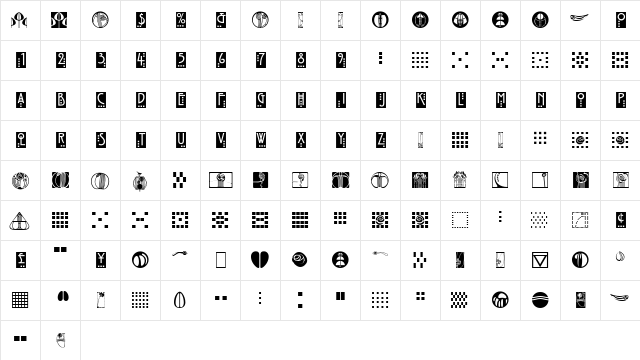
Rennie Mackintosh Ornaments ITC Regular
Design Context for Rennie Mackintosh Ornaments ITC Typeface
Rennie Mackintosh Ornaments ITC brings ornamental detail and strong personality to headlines and identities, where visual impact matters more than quiet functionality.
Font Pairing: Pair with a clean neutral sans-serif for body copy to let Rennie Mackintosh Ornaments ITC's character lead without overwhelming the composition.
Pro Tip: Treat Rennie Mackintosh Ornaments ITC as the centrepiece of your typographic hierarchy. One strong heading set in a decorative face can carry an entire layout.